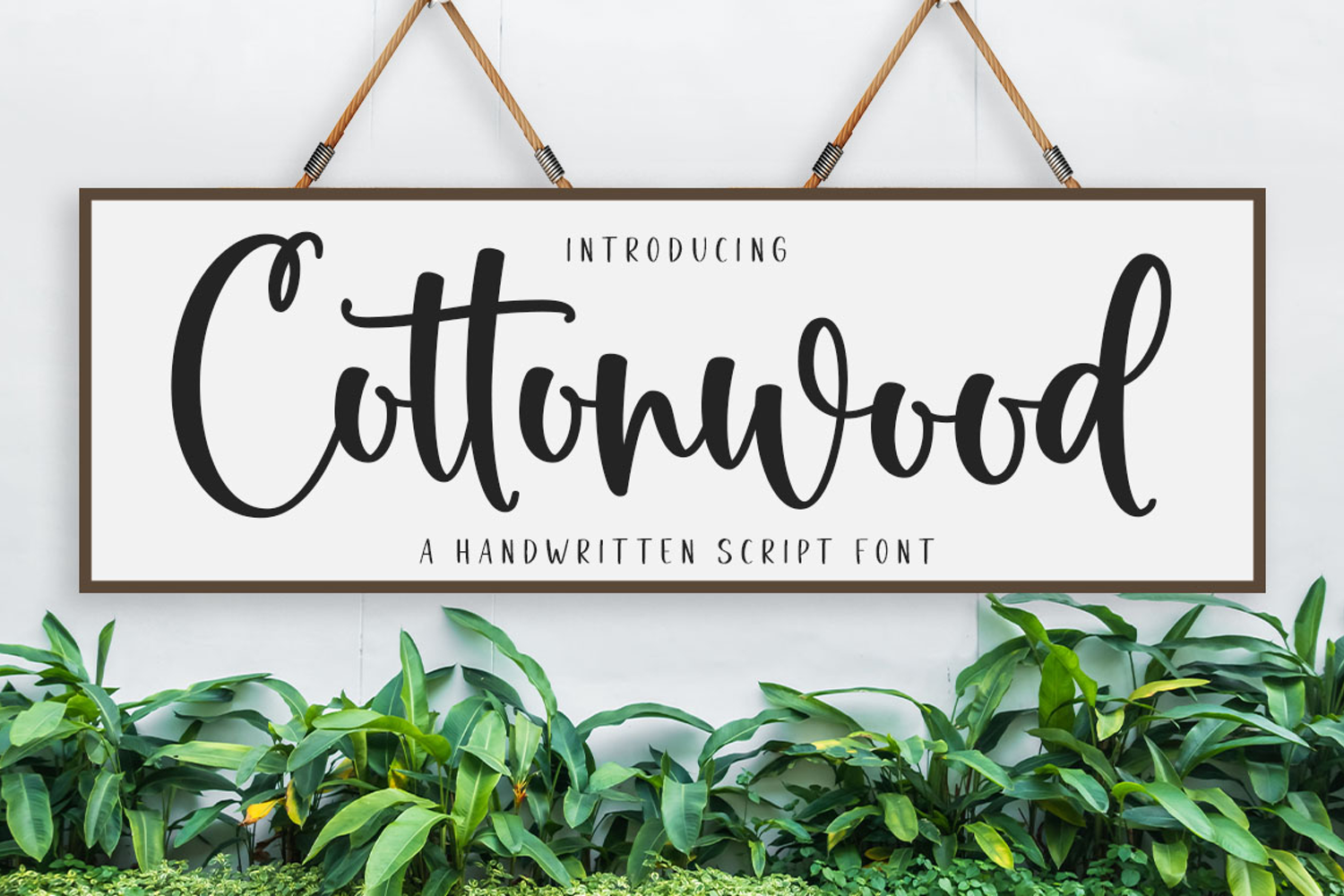
Cottonwood
Cottonwood is a delicate, elegant, and flowing handwritten font. It has beautiful and well-balanced characters and as a result, it matches a wide pool of designs.